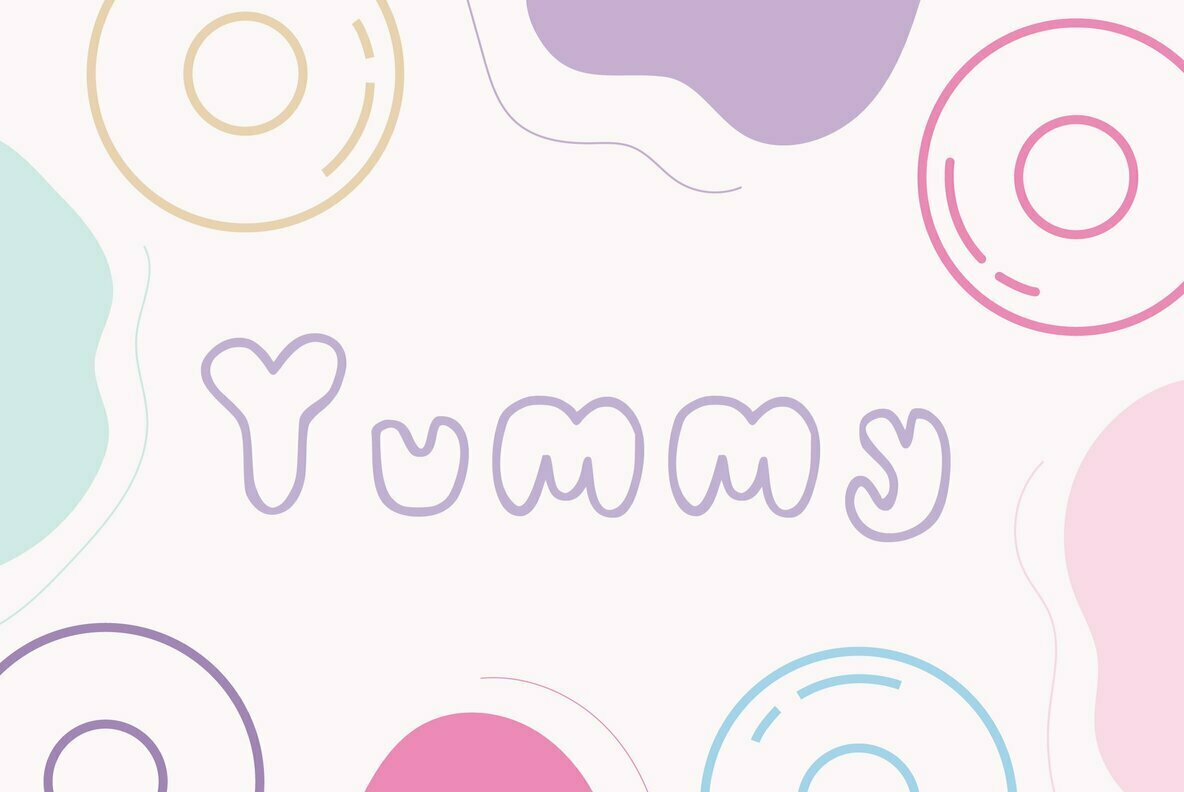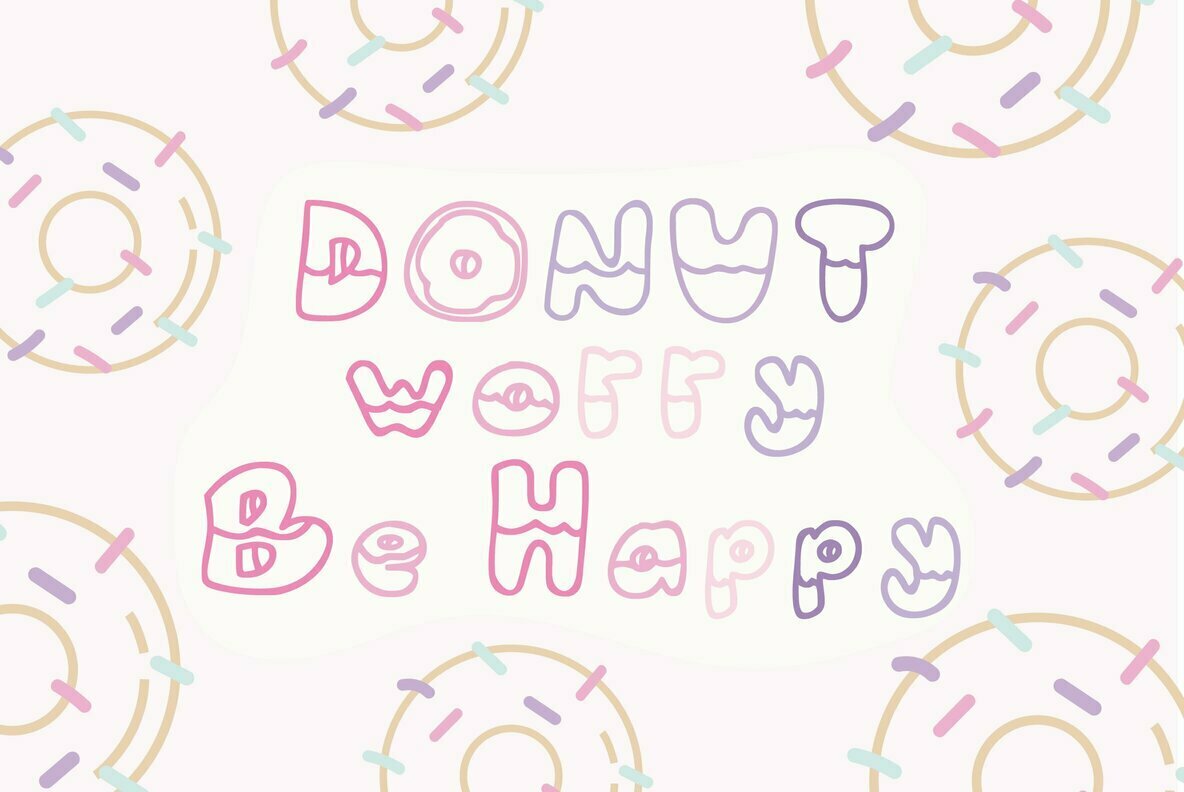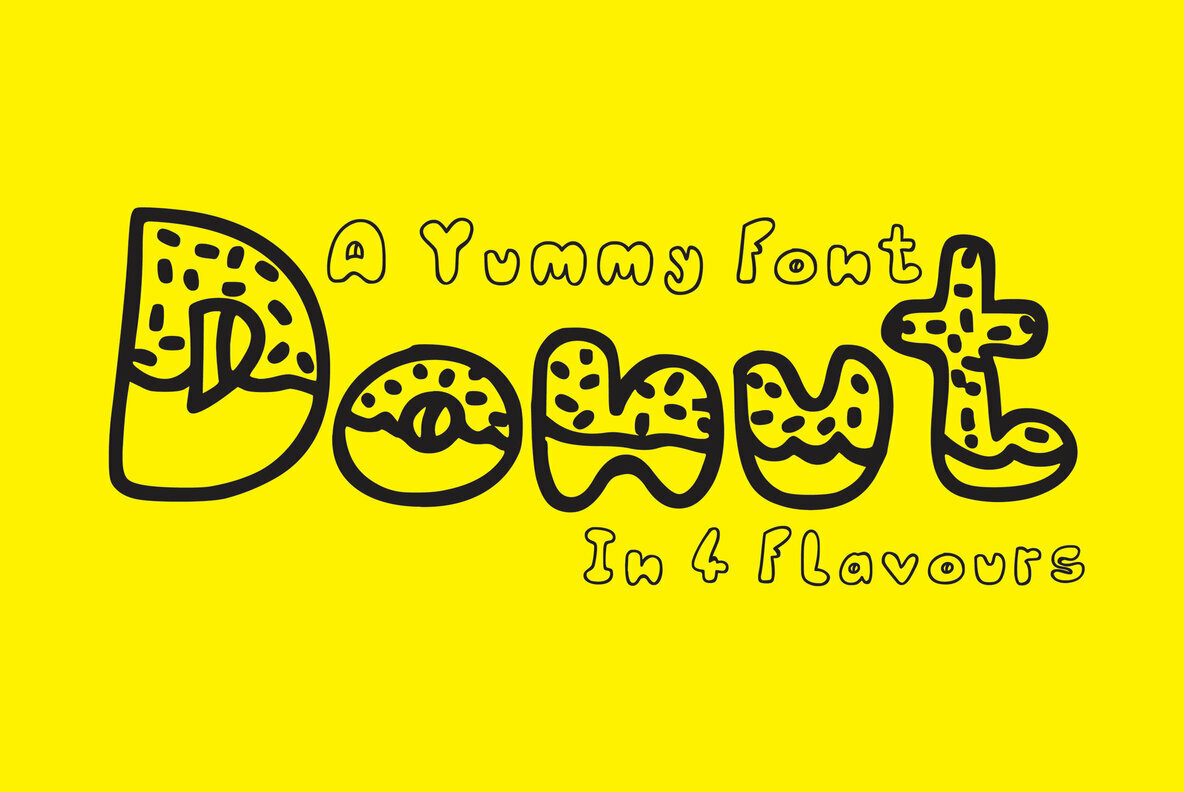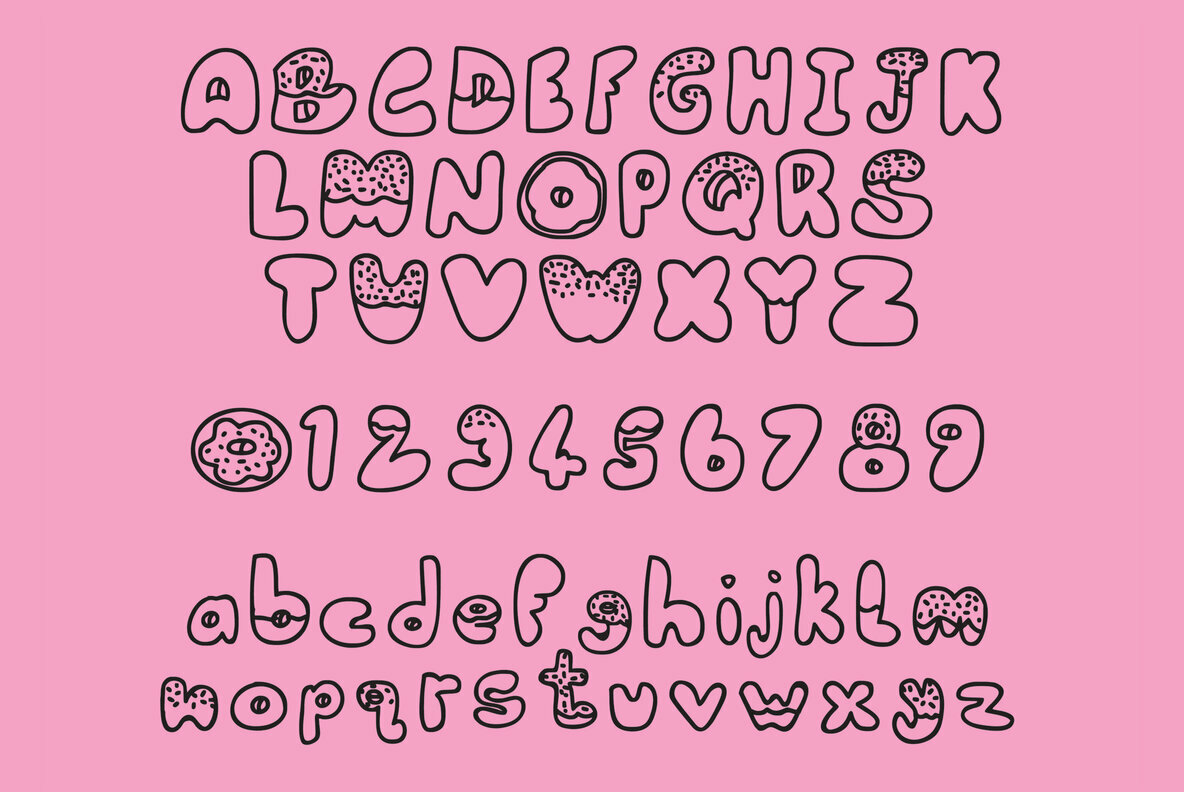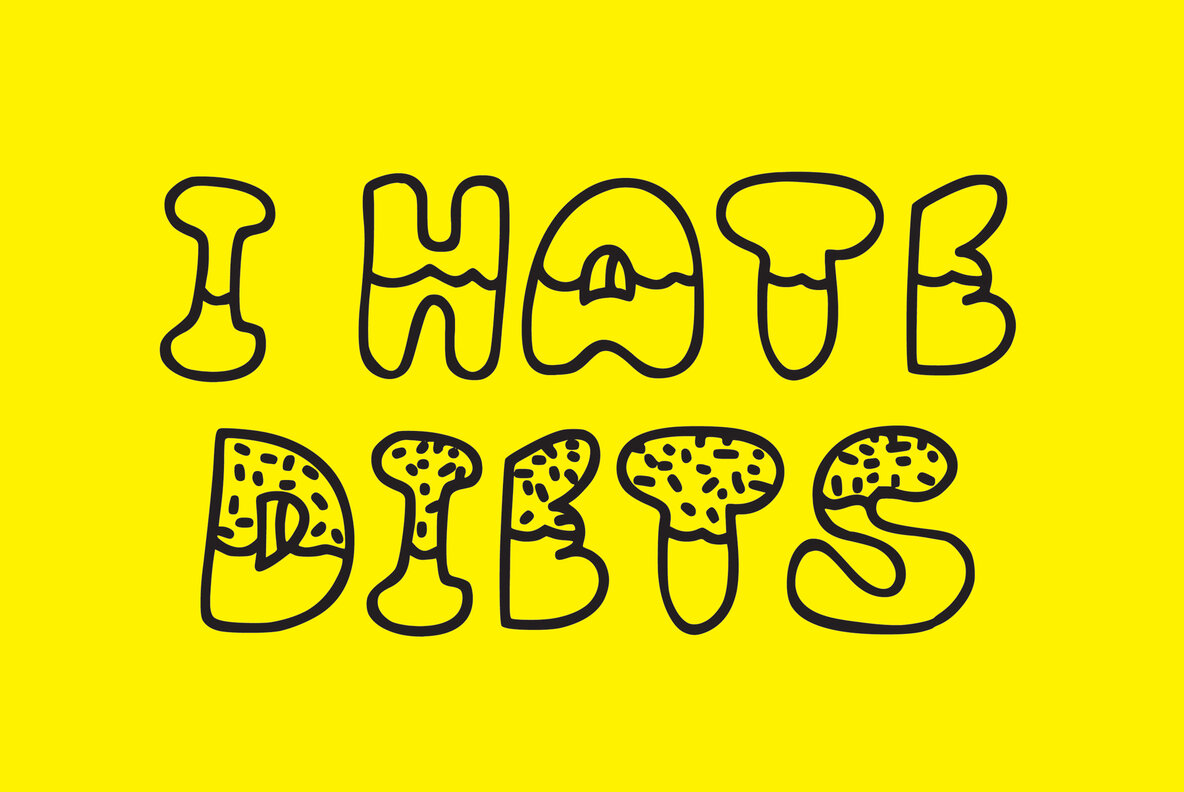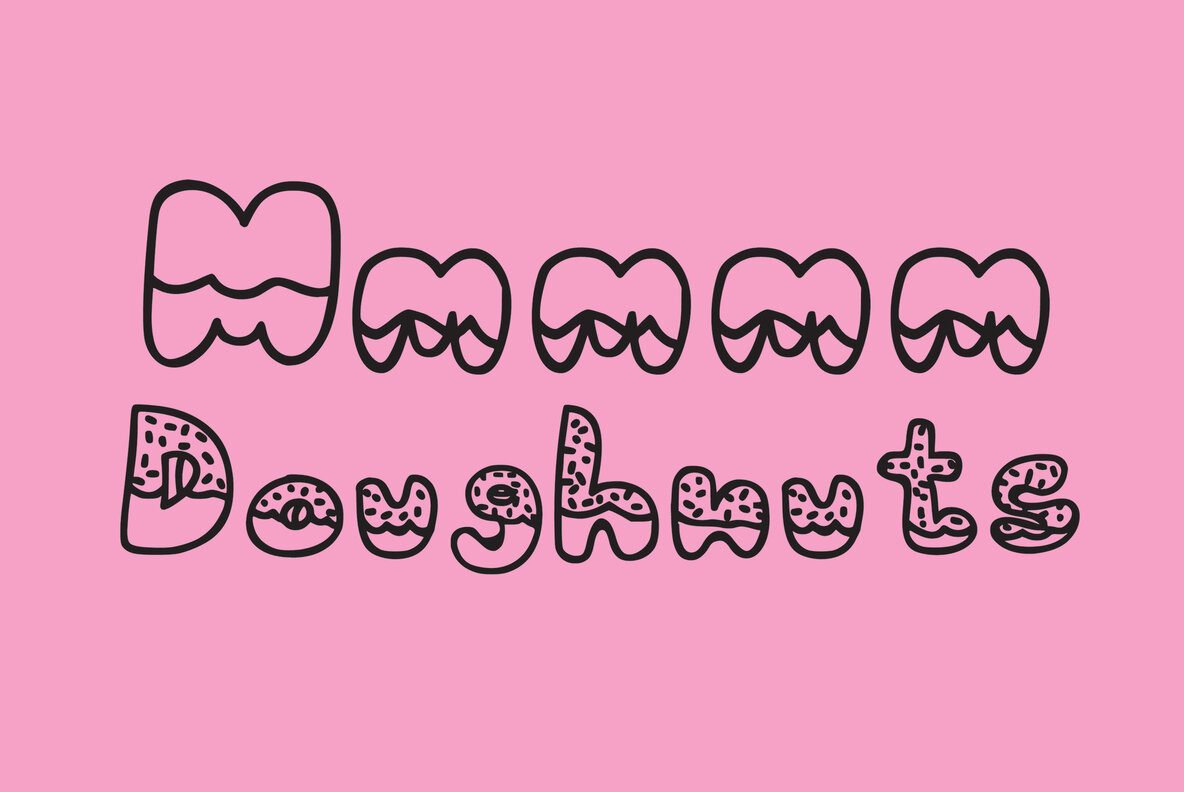
Donut Font
Donut is a scrummy font, shaped after your favourite sweet treat. Donut has four weights to help you create the doughnut of your dreams! Choose from sprinkles, icing, plain or go the full hog and have them all – it’s your choice!